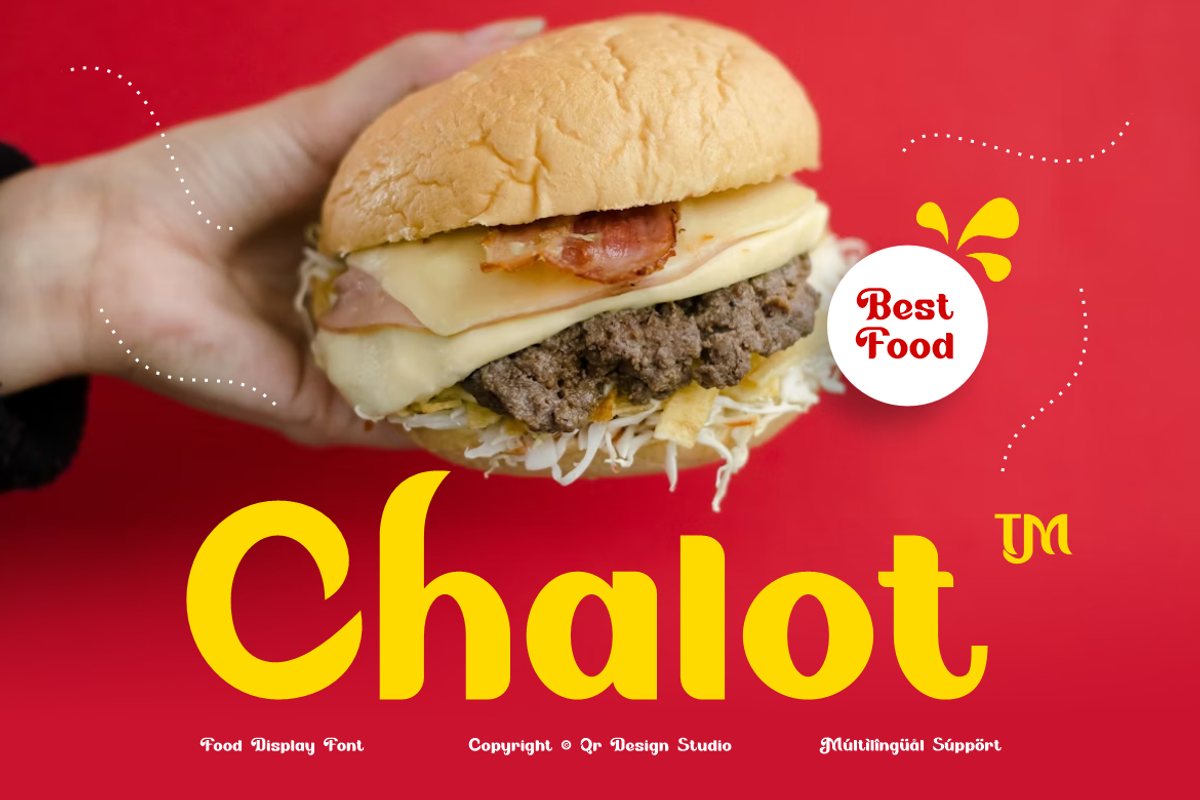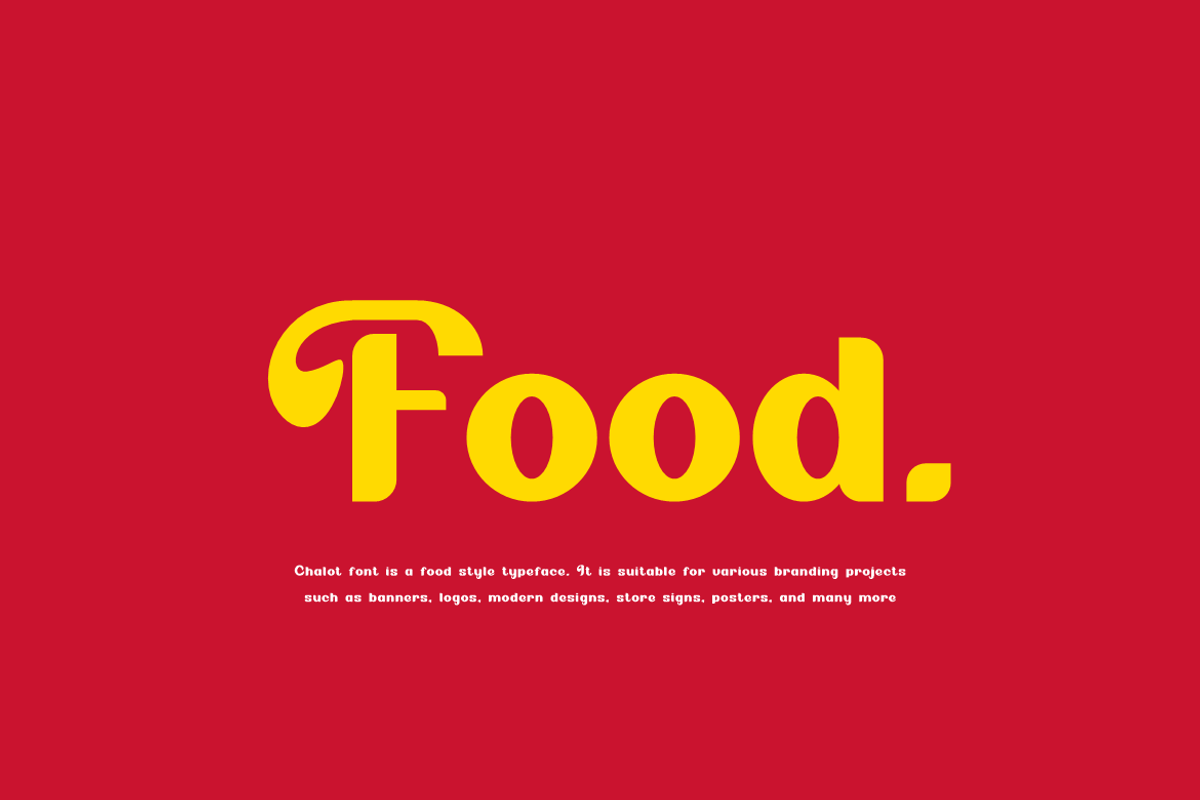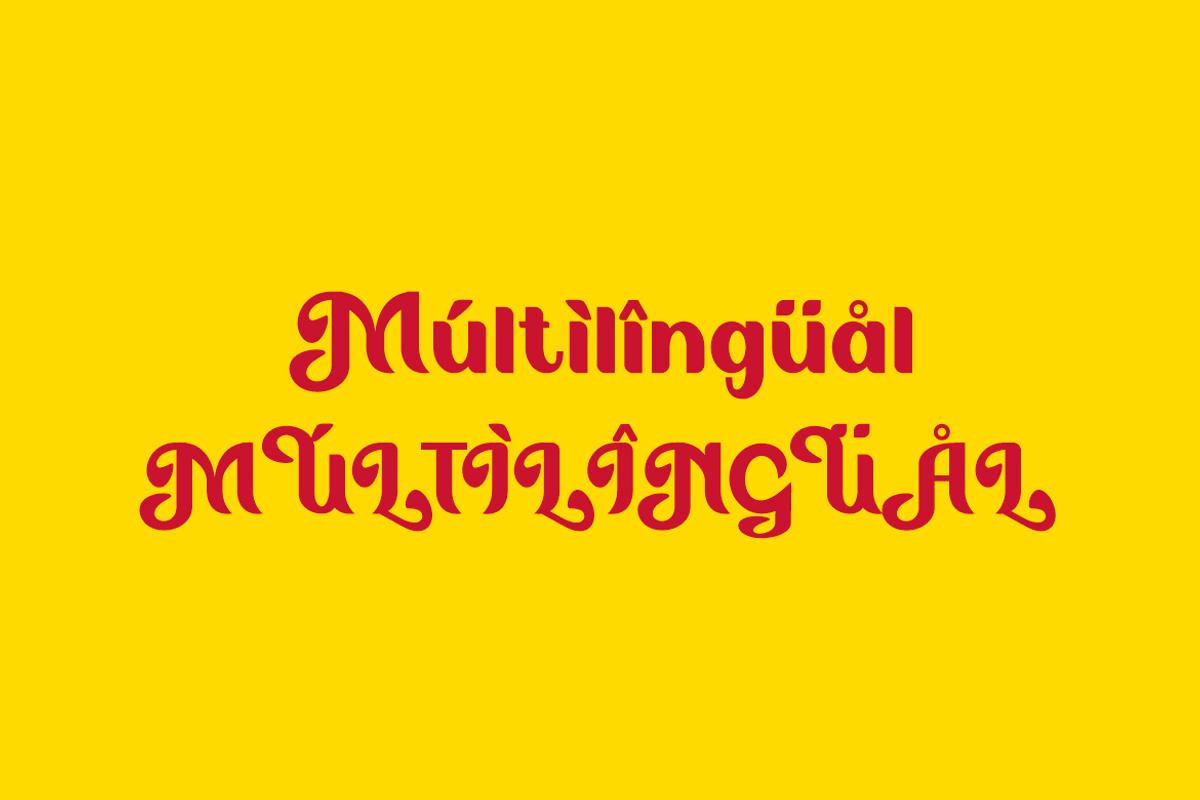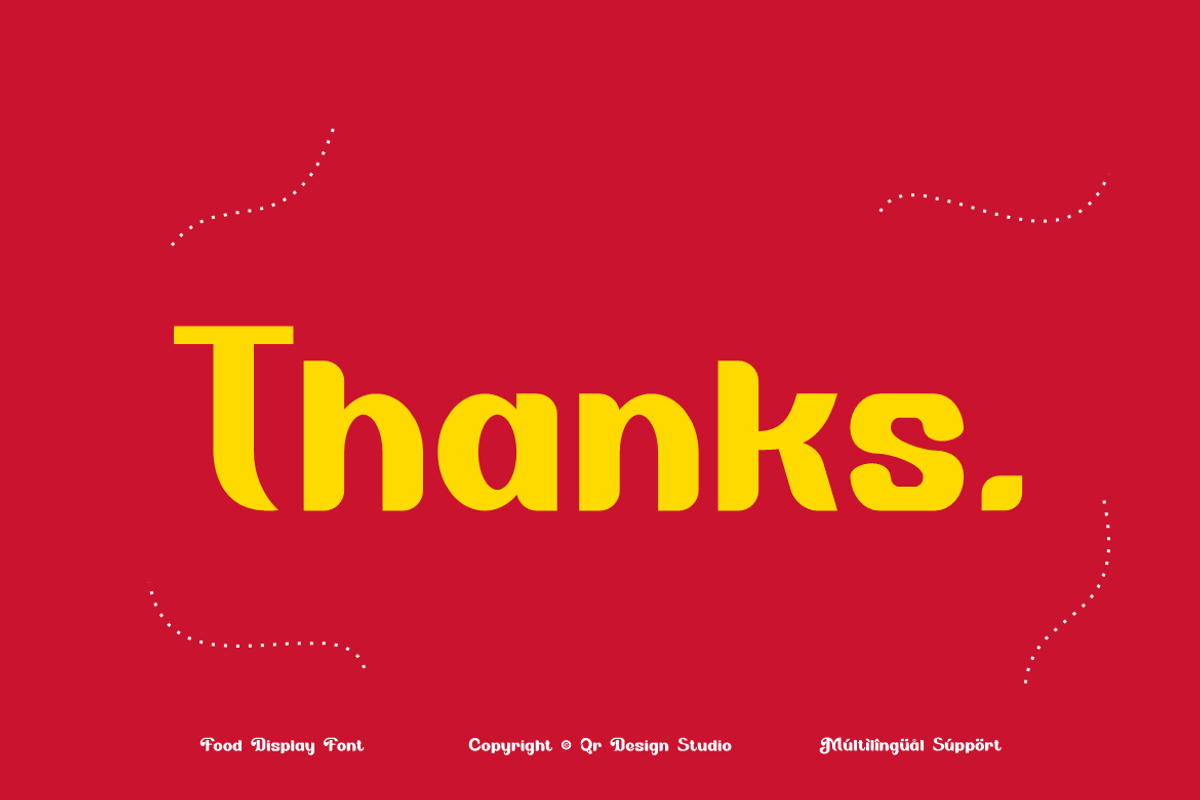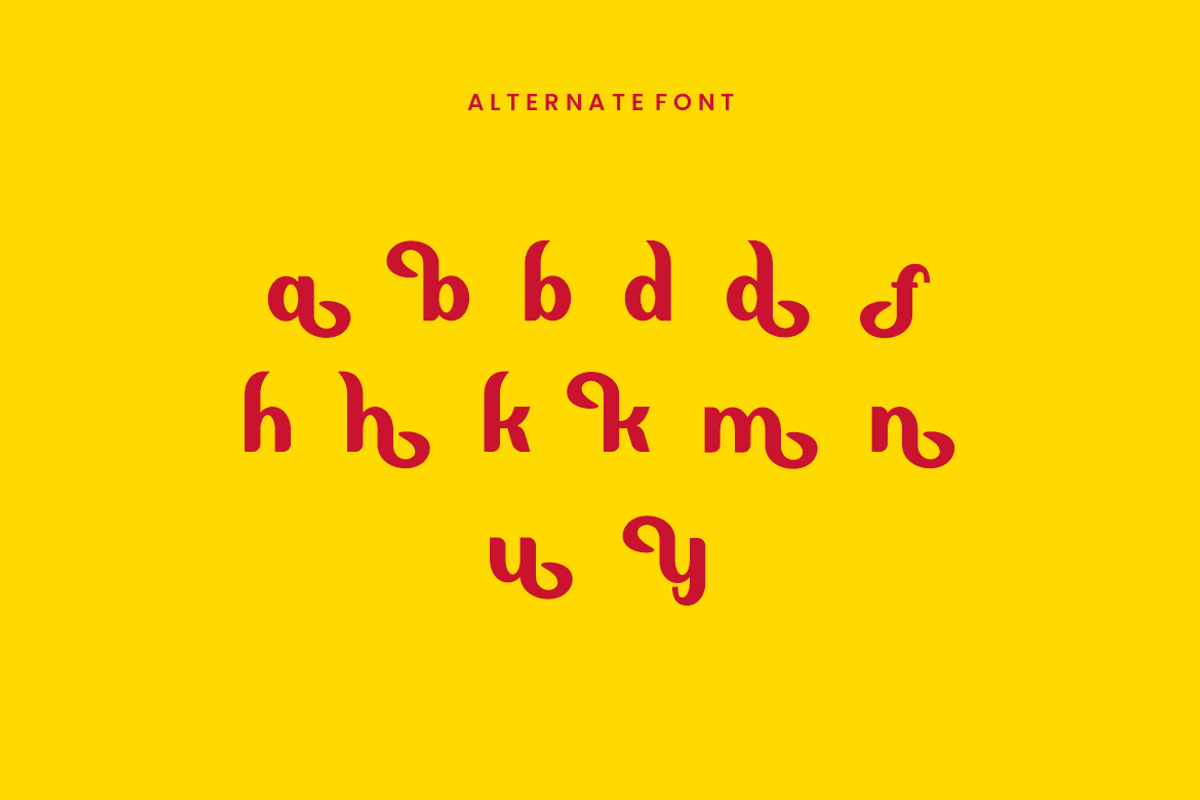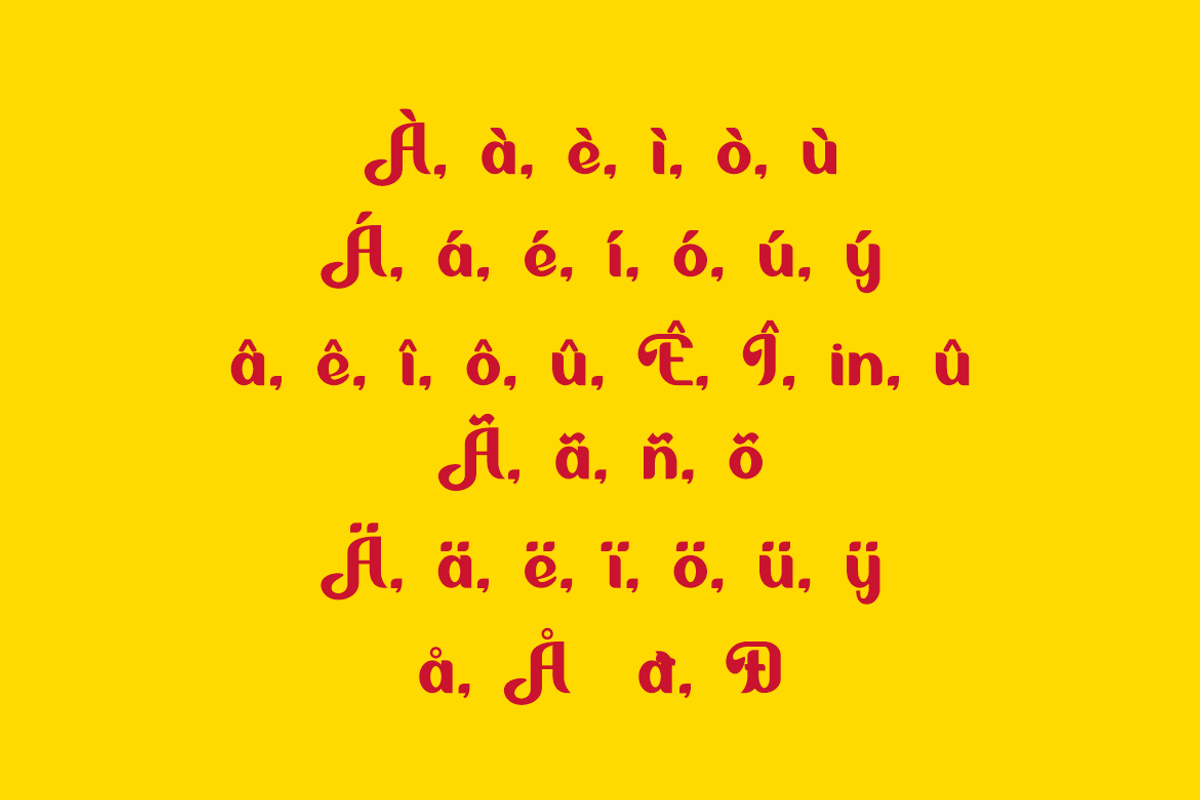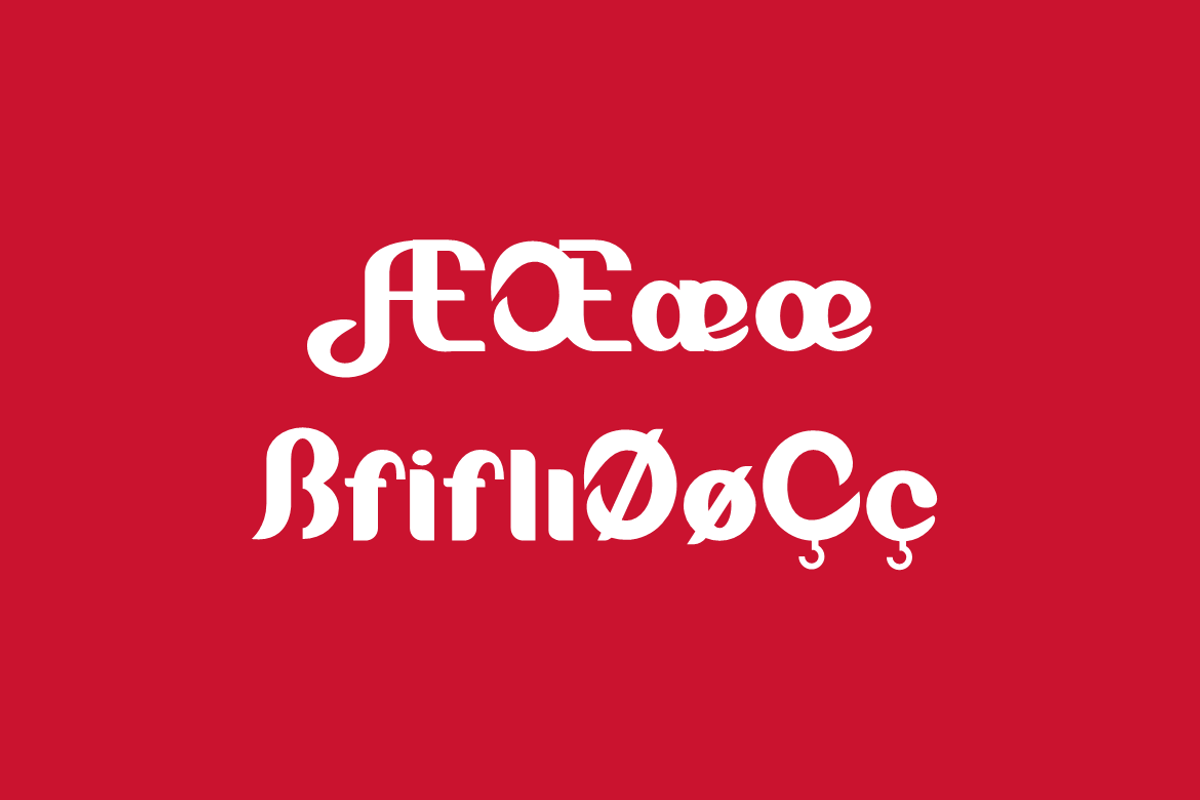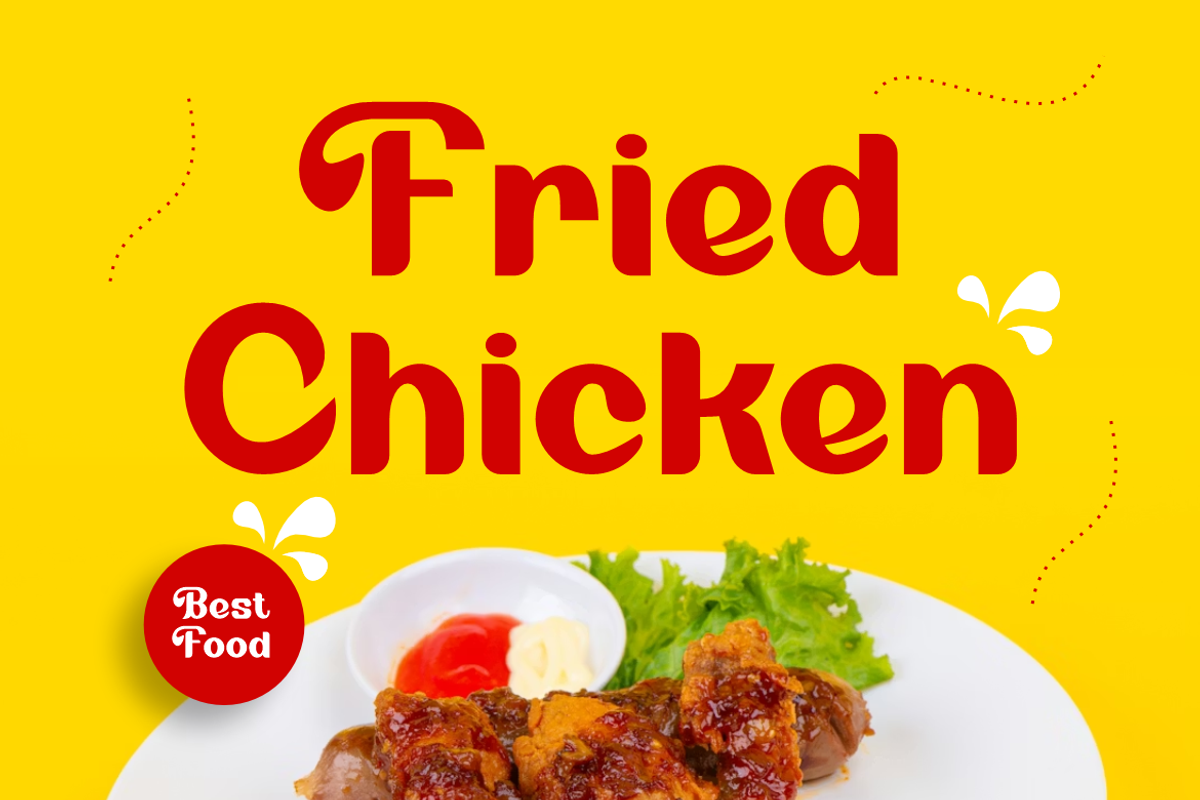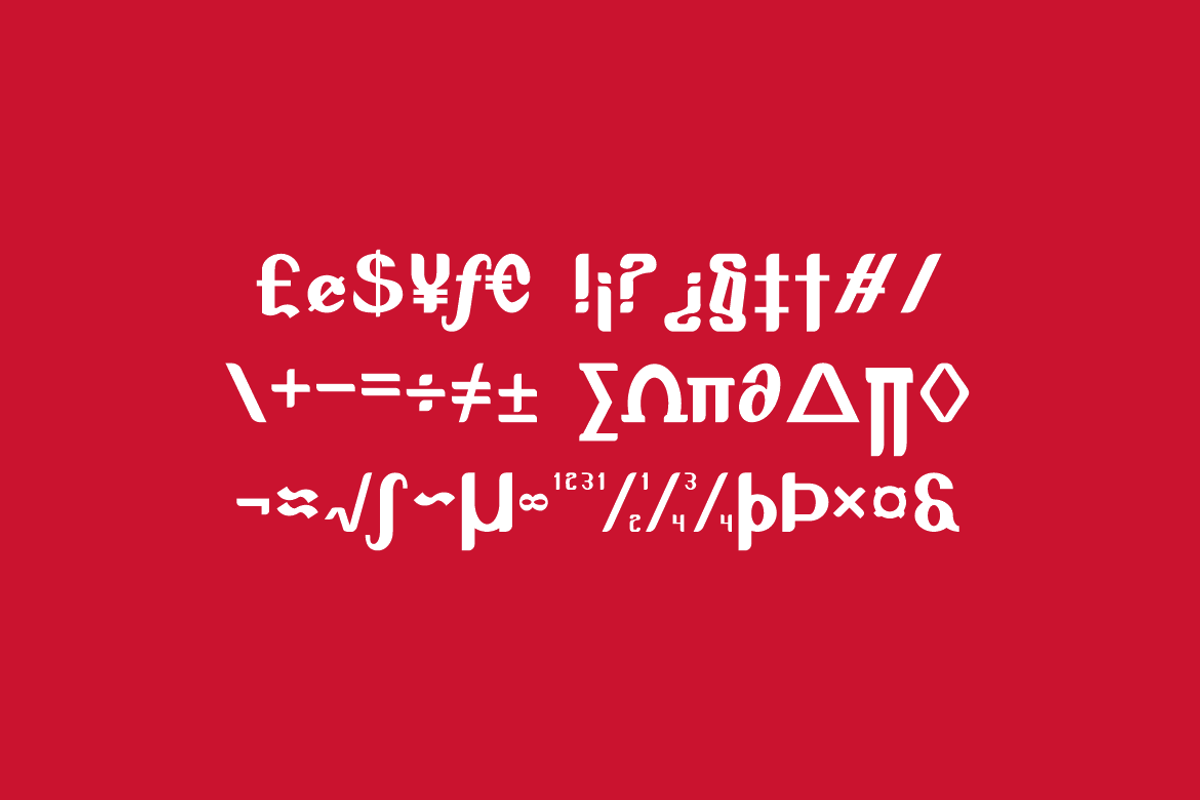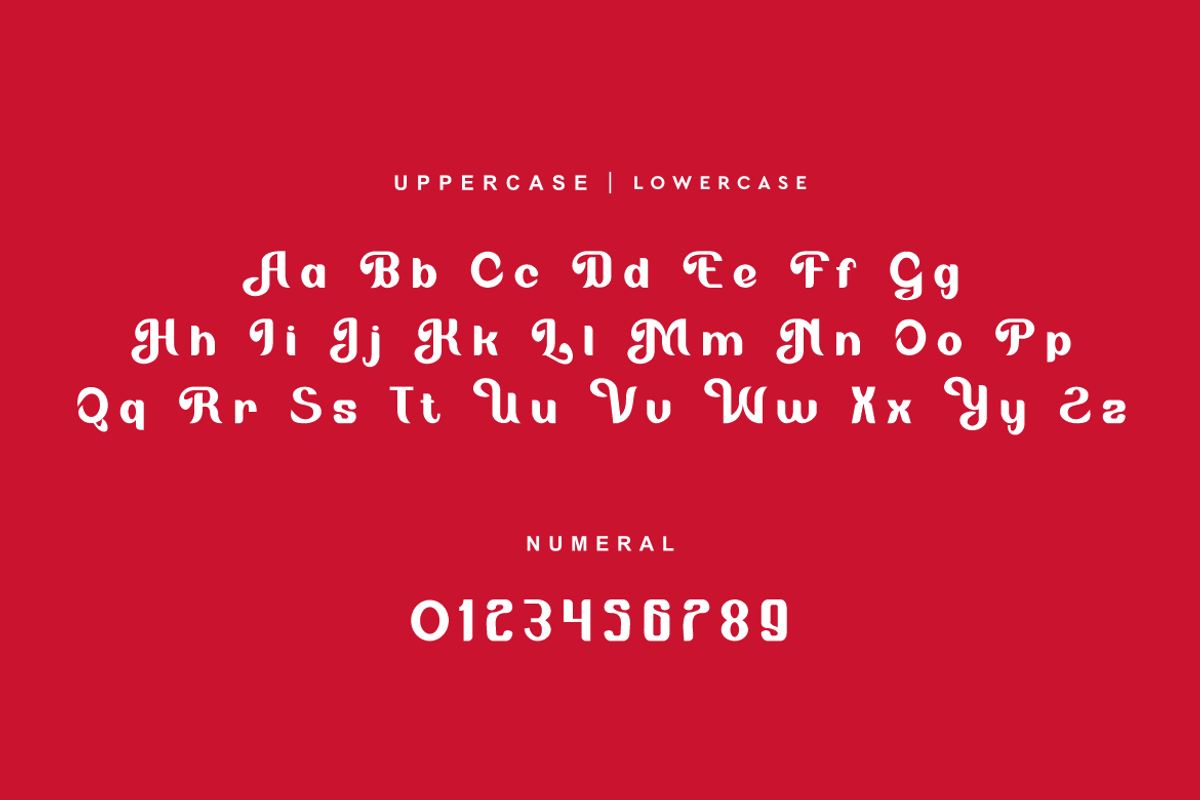
Chalot - Food Font
Chalot Font is a bold and authentic display typeface. It’s perfect for various branding projects such as logos, food designs, and more. This font stands out beautifully in a wide range of contexts.